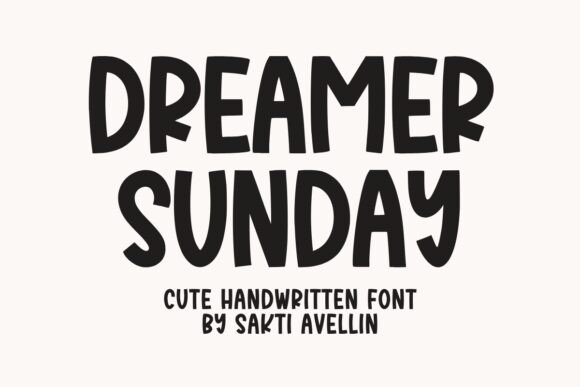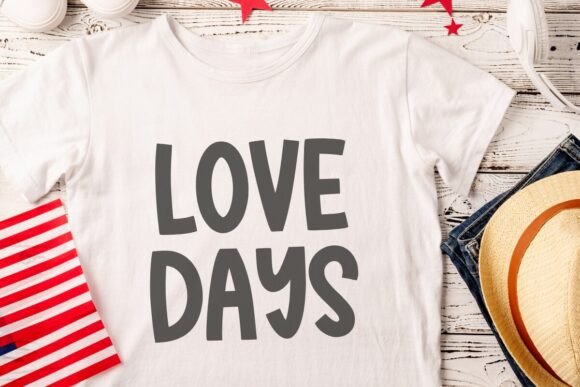
Dreamer Sunday Font
Imbued with an artistic touch and a vibrant persona, Dreamer Sunday invites an enchanting essence of handcrafted charm to your work. This beguiling typeface thrives on crafts, amplifying the sentiment of greeting cards, and heightening emotions in quotes. Exude allure through its captivating aesthetics on t-shirts, stir intrigue on mugs or invite warmth on doormats with its distinctive flair. Dreamer Sunday weaves a narrative on key chains, and adds a magical vibe to your project. Revel in the charm of real penmanship encapsulated in a font— immerse yourself in the magnetic lure of Dreamer Sunday!